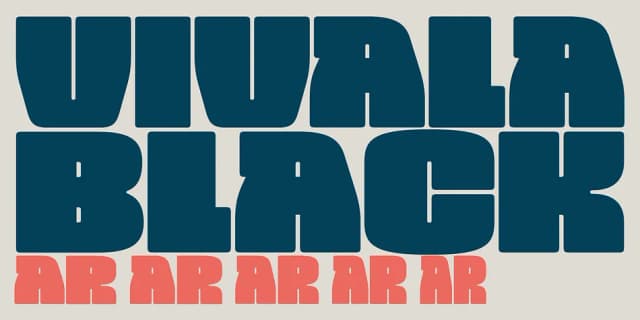
About Vivala Black Font
Vivala Black is a font that commands attention. Crafted with a high black-to-white ratio, it is built to fill space and create a powerful, compact style. Whether you're designing for a striking magazine cover, an eye-catching poster, or elegant book pages, Vivala Black provides the depth and intensity you need. Its gives you the freedom to fine-tune your design and add unique character to your work.